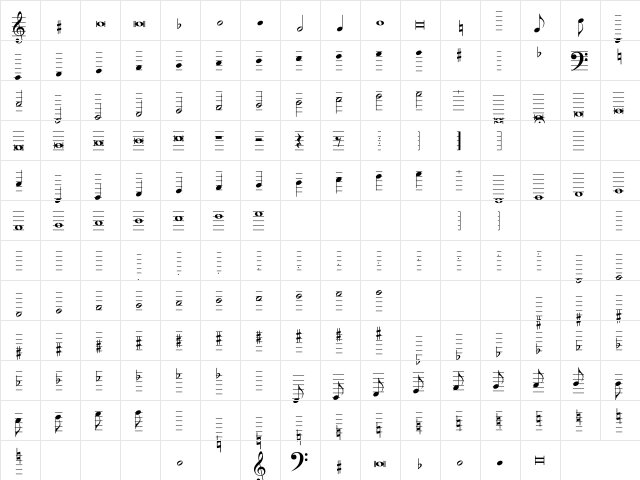
Hymnus FG Regular
| Foundry | Fontgrube AH |
| Designer | Andreas Hd |
Design Context for Hymnus FG Typeface
Hymnus FG takes a measured approach to typography — its balanced proportions and neutral character make it a reliable workhorse for both digital and print work.